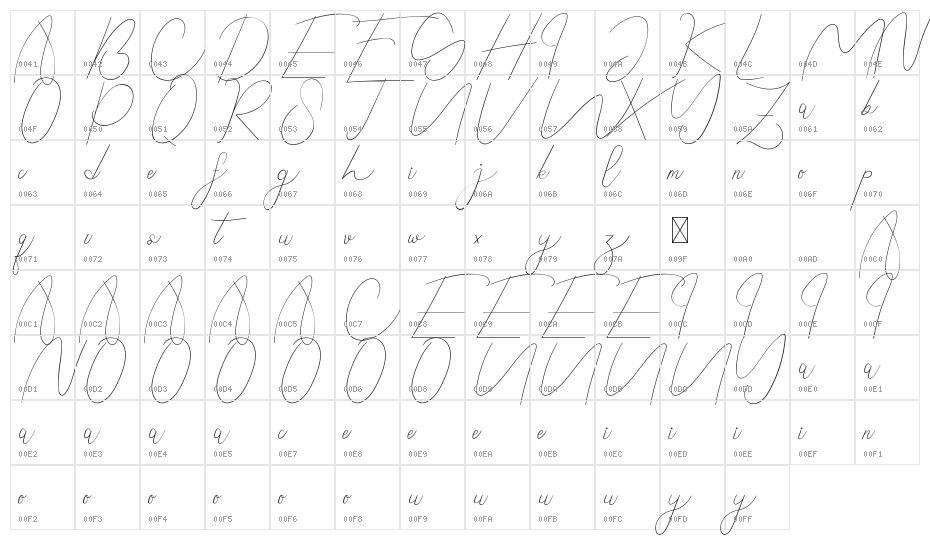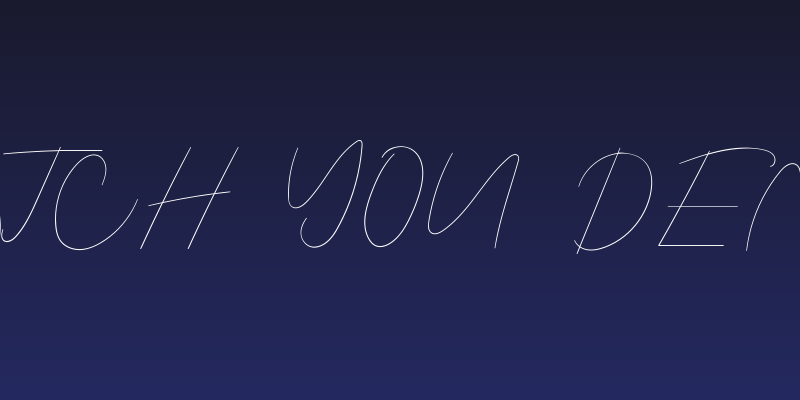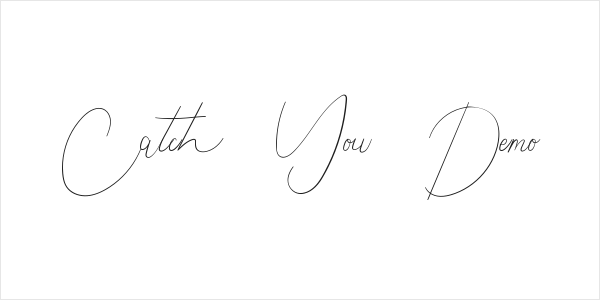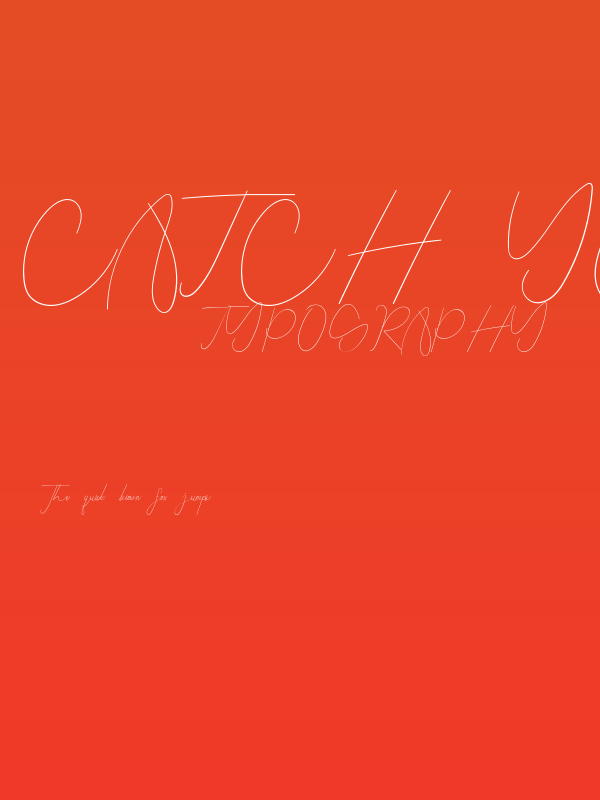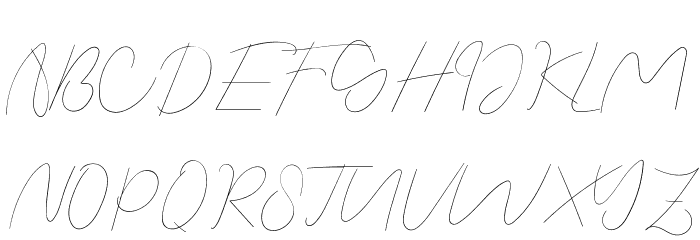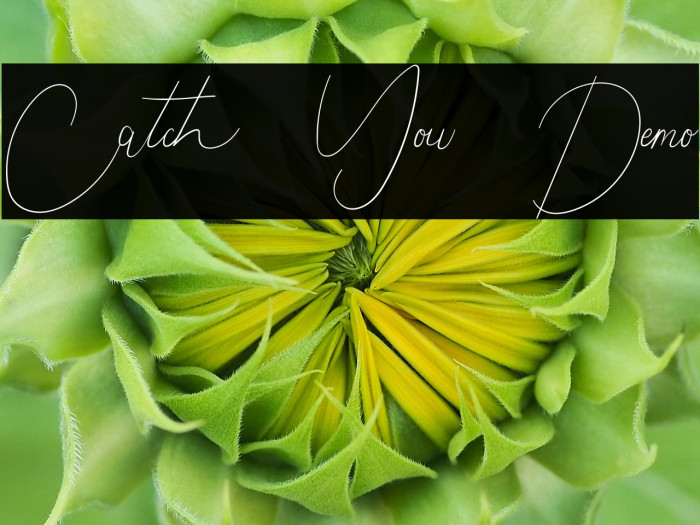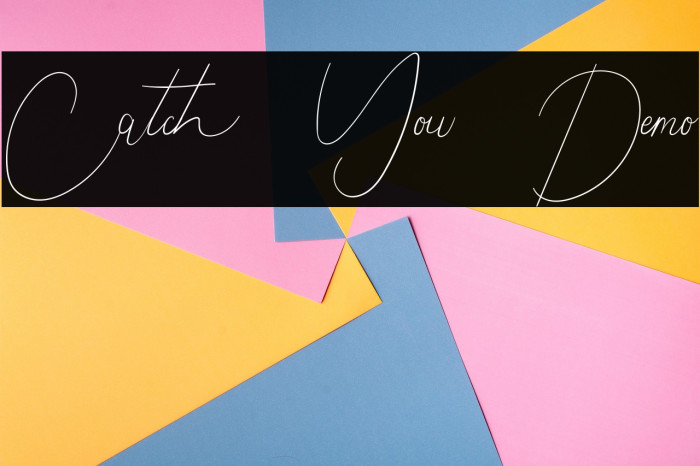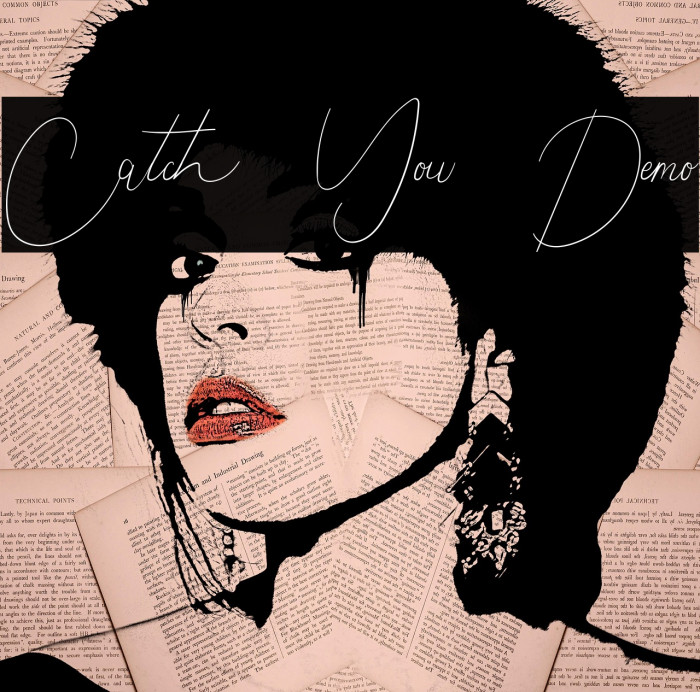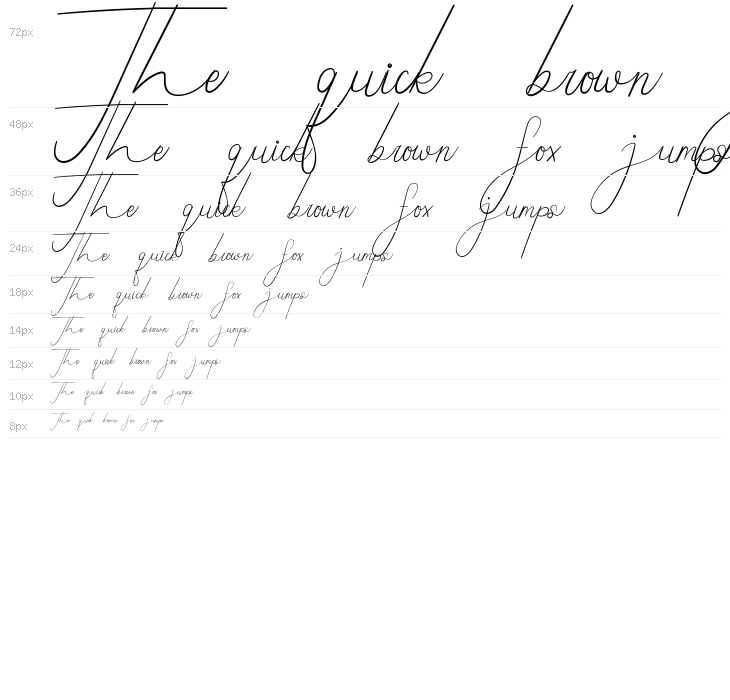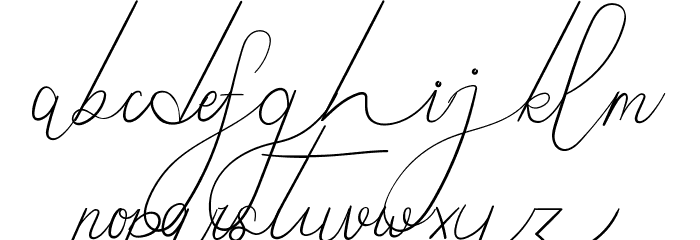
Catch You Demo Font
Catch You Demo Description
This elegant script font features a flowing, cursive style with delicate, thin strokes that create a sense of grace and sophistication. The uppercase letters are tall and slightly slanted, while the lowercase letters exhibit a more pronounced slant with intricate loops and flourishes. The font maintains a consistent stroke width, contributing to its refined and airy appearance. It is well-suited for projects that require a touch of elegance and formality, such as wedding invitations, upscale branding, or decorative headings. The overall design exudes a classic yet modern charm, making it versatile for various creative applications.
| Overall Style | Elegant, Classic |
| Use Case | Headlines, Invitations, Branding |
| Proposed Projects | Ideal for wedding invitations, luxury branding, decorative headings, and formal event materials. |